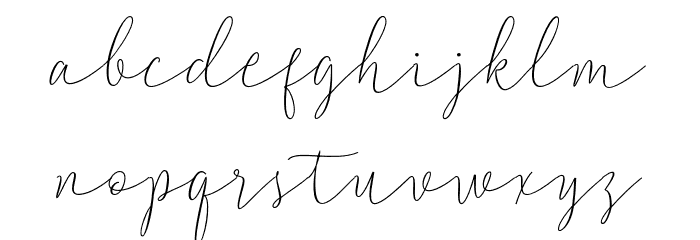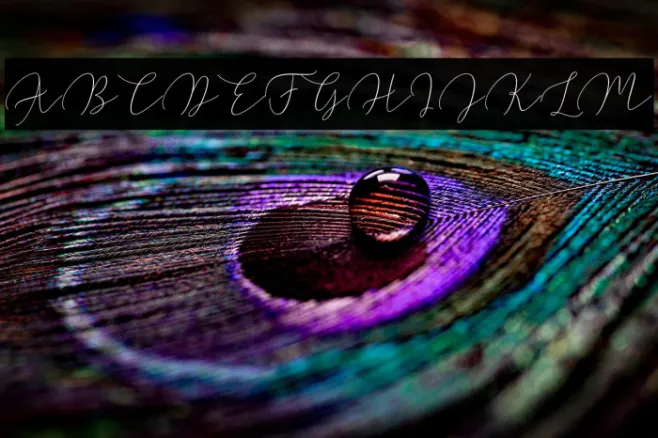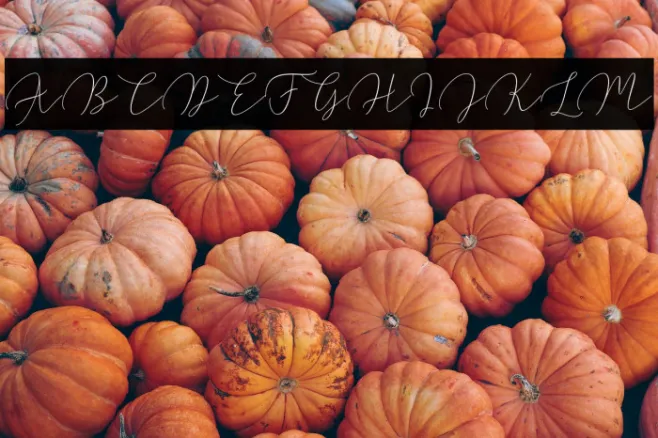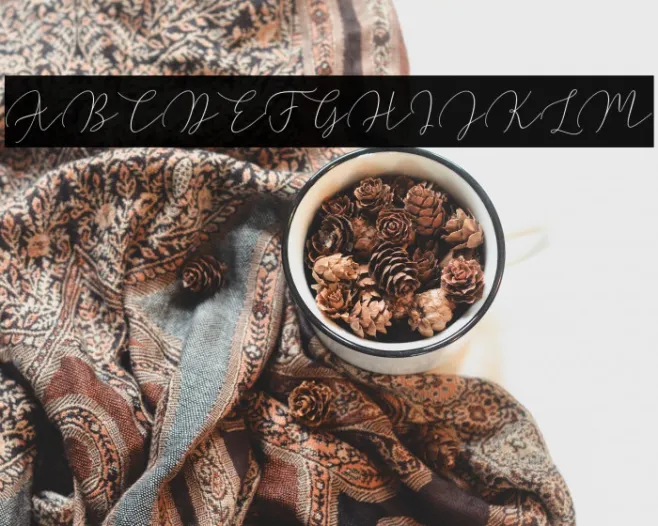
WaltyScript Font
This font exudes elegance and sophistication with its fluid, cursive style. The letters are gracefully connected, creating a seamless flow that mimics natural handwriting. The strokes are delicate and thin, giving it a refined and airy appearance. The uppercase letters maintain a consistent height, while the lowercase letters have a slight variation in size, adding to the font's charm. The overall design is clean and uncluttered, making it suitable for projects that require a touch of class and personality. Its script nature makes it ideal for invitations, greeting cards, and branding materials where a personal touch is desired.
An elegant, cursive script font with fluid, connected letters and a refined appearance.
- Font: WaltyScript
- Proposed Projects: Ideal for wedding invitations, personal branding, greeting cards, and elegant stationery.
- Category: Script
- Weight: Light
- Overall Style: Elegant
- Use Case: Invitations, Branding, Greeting Cards